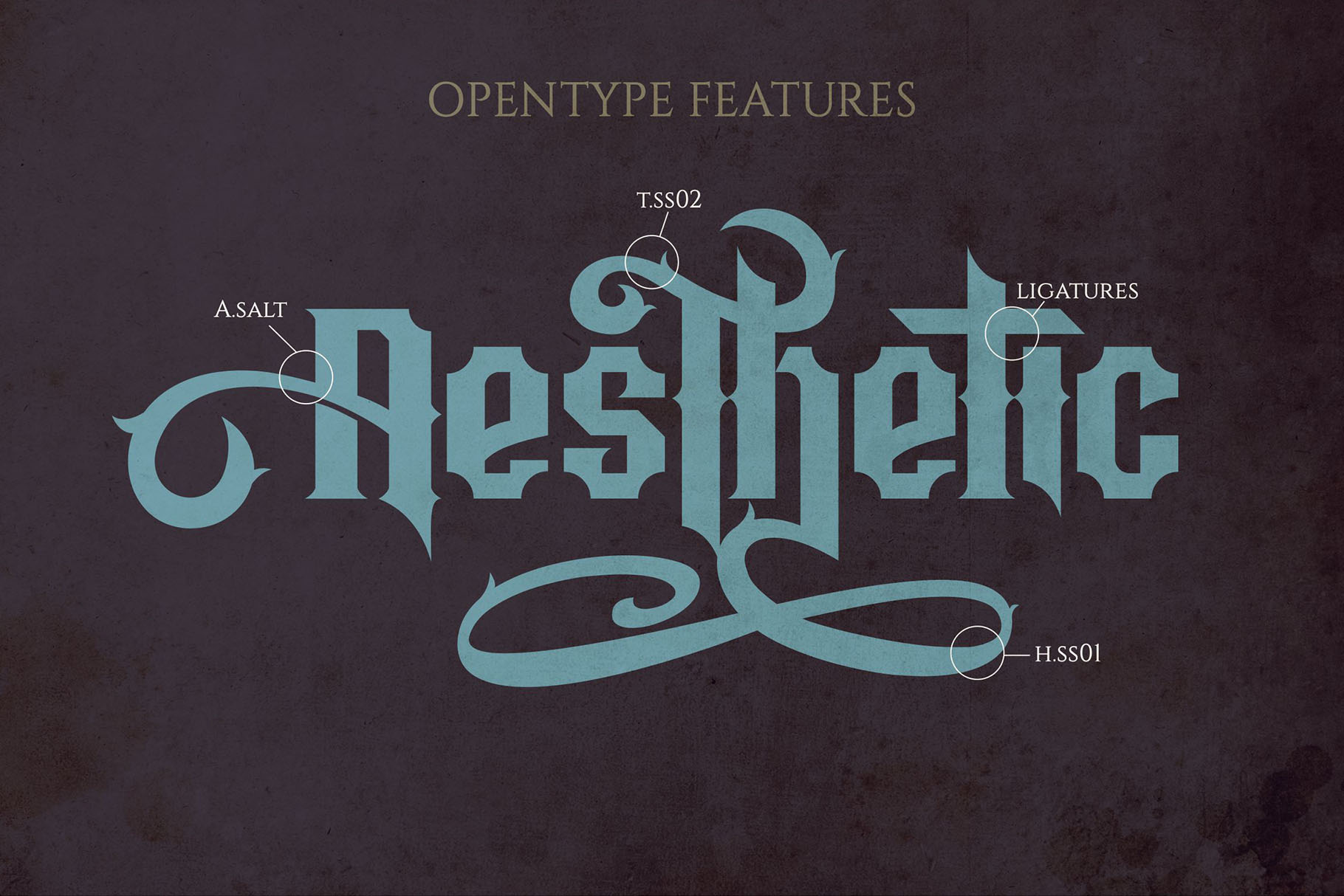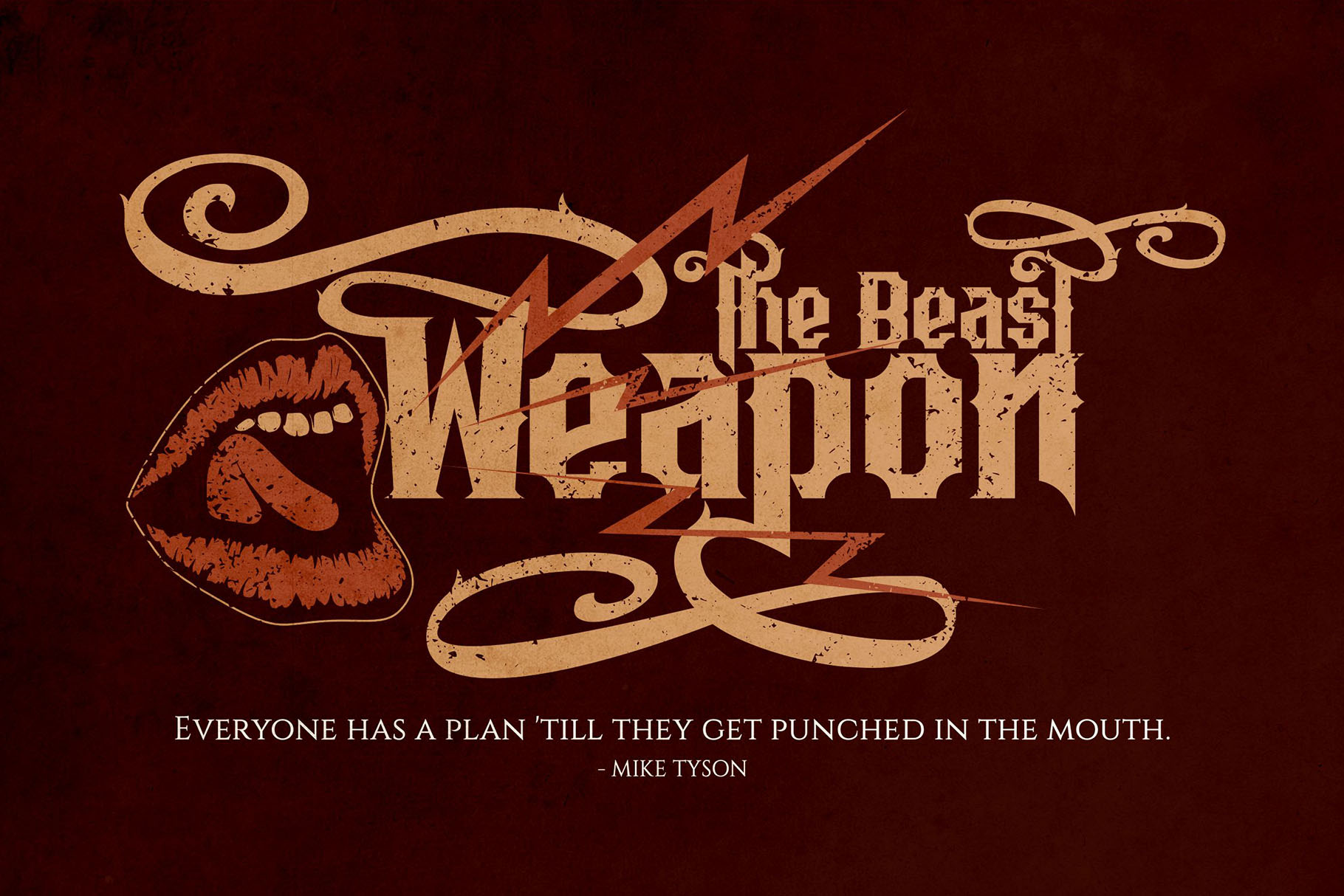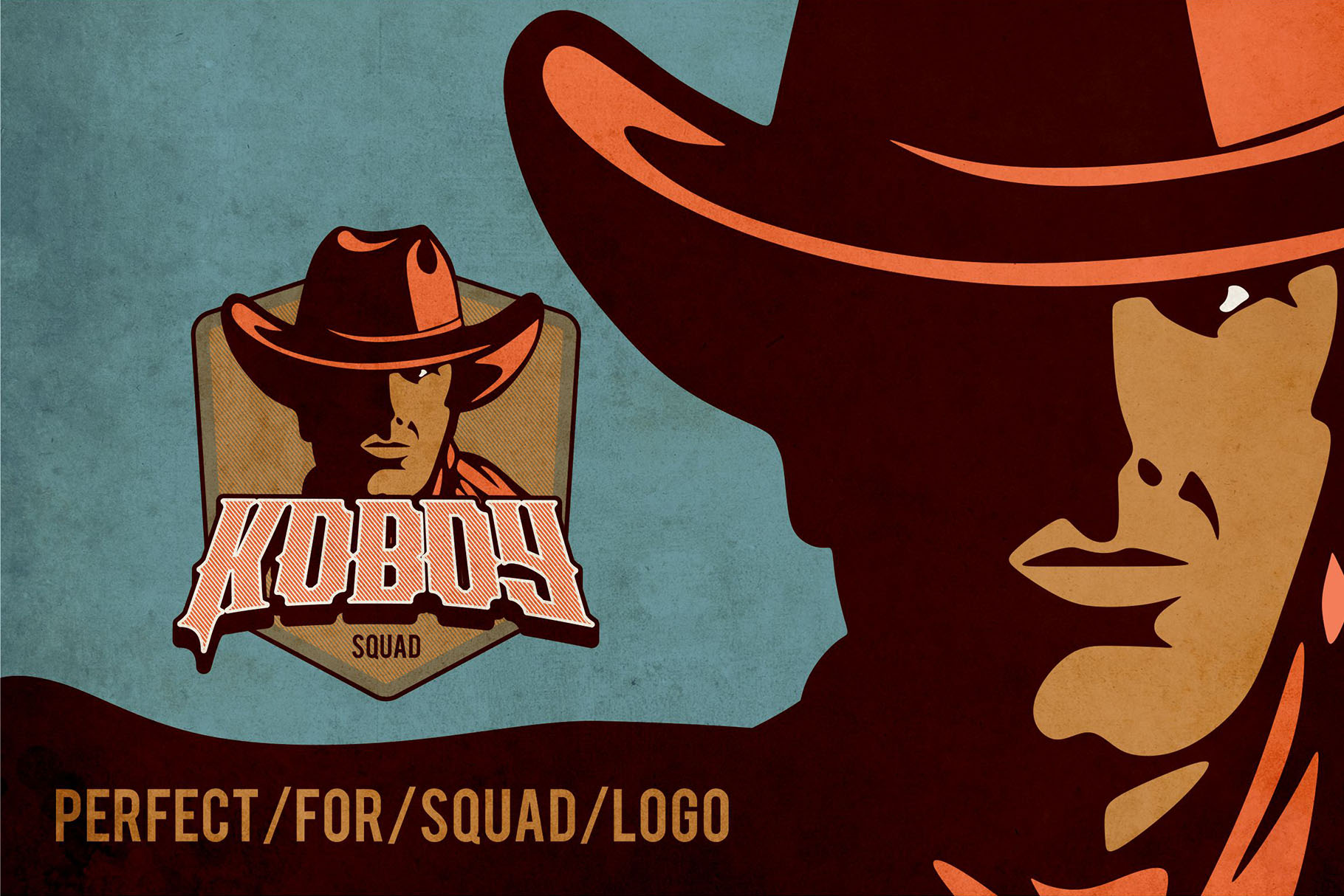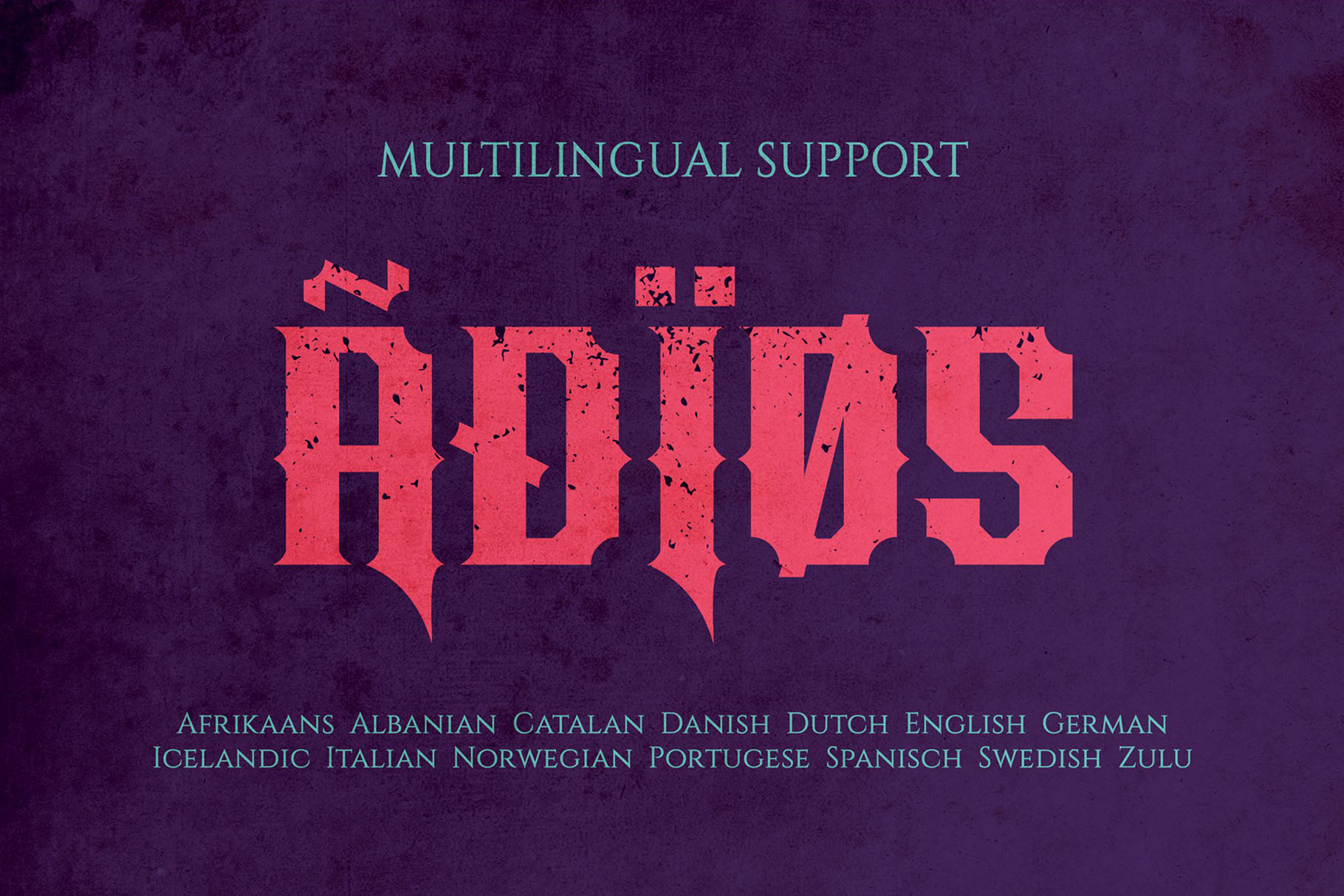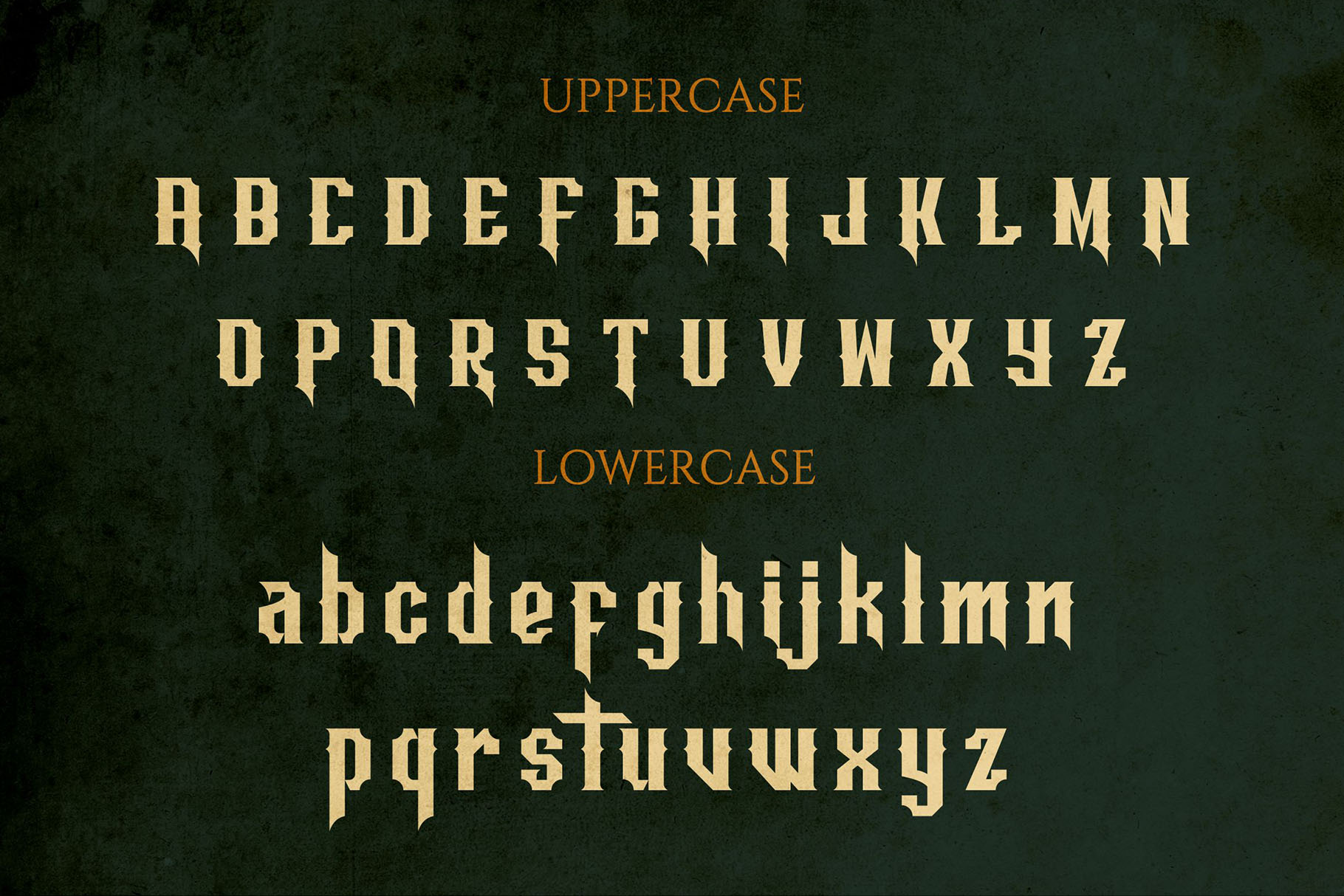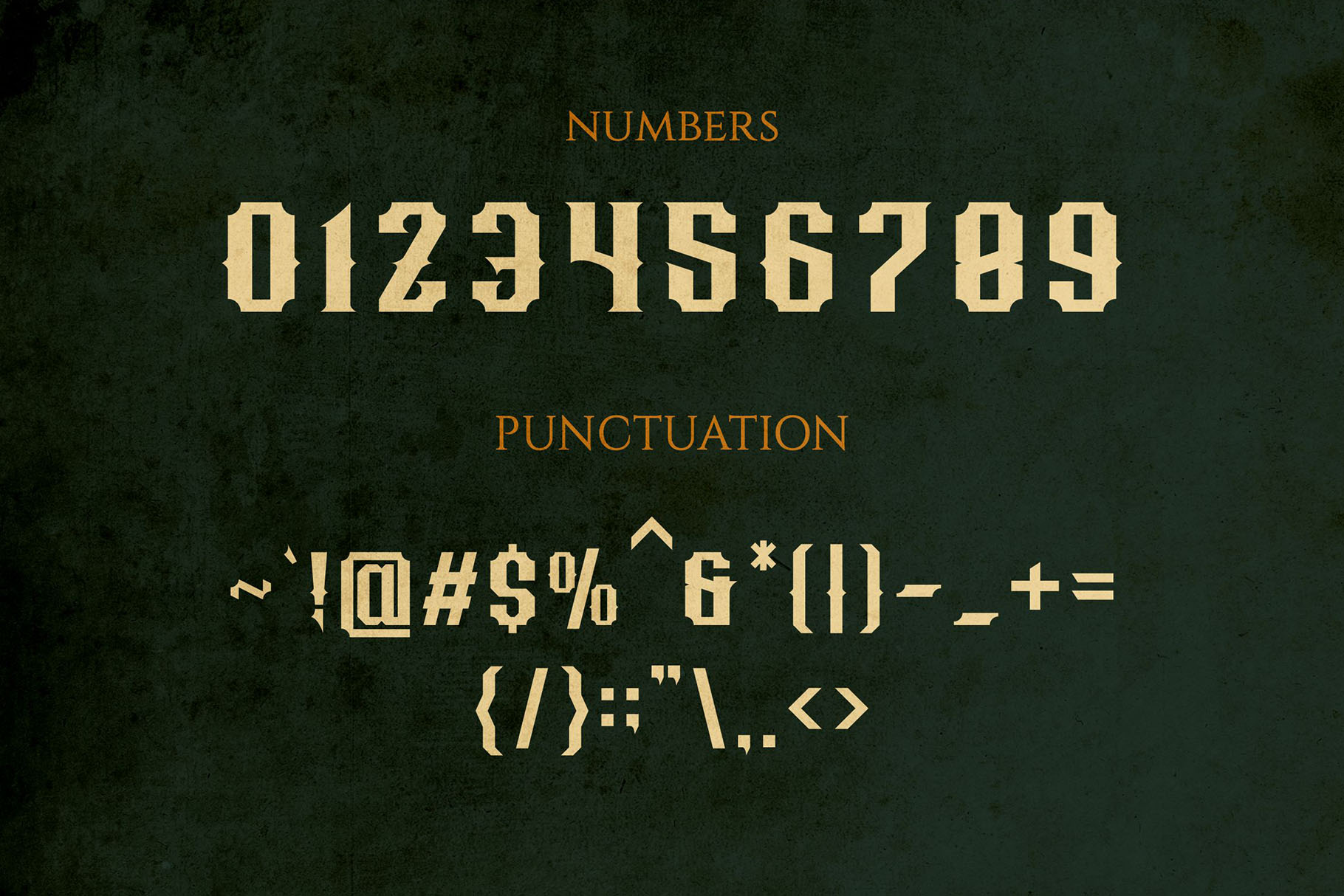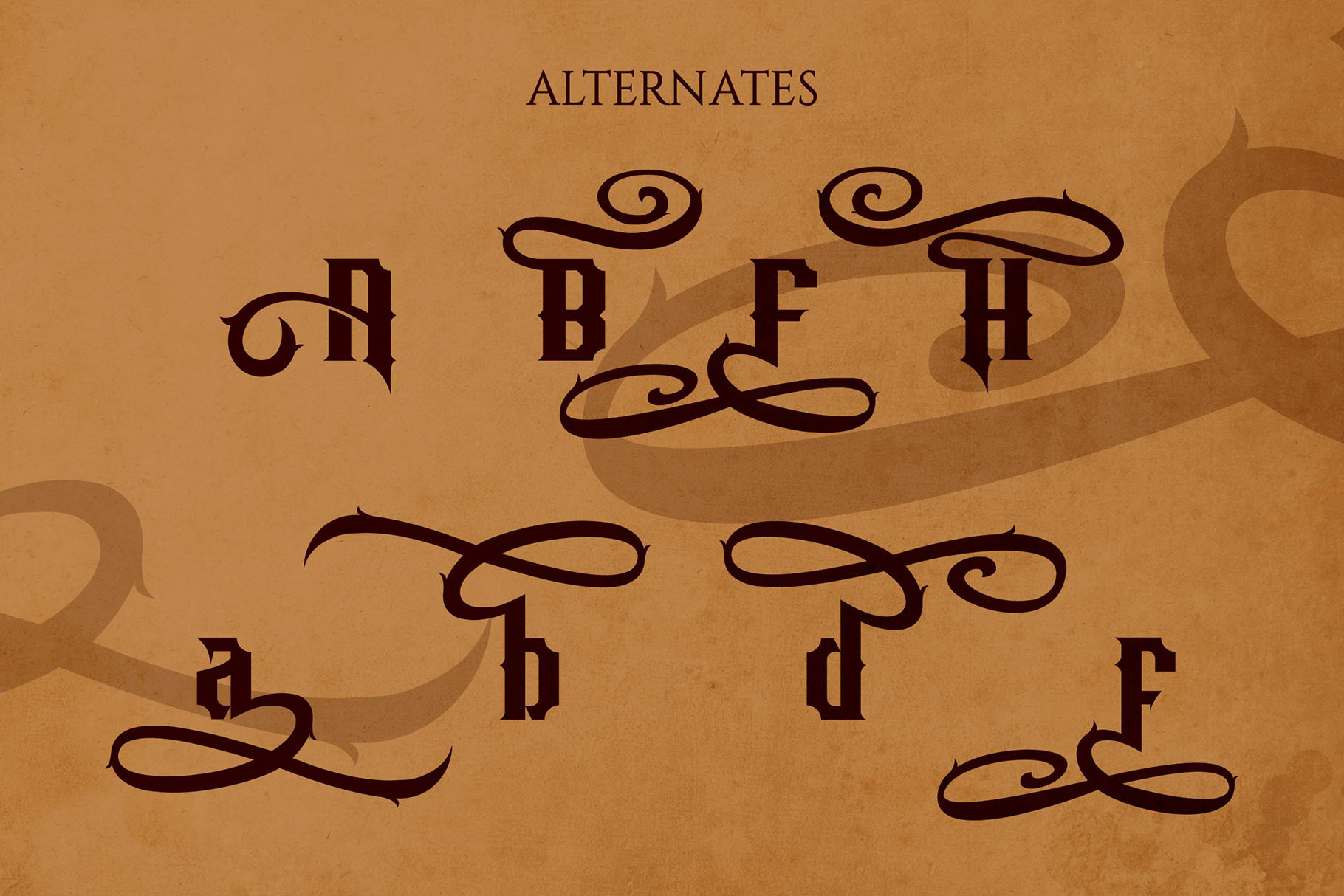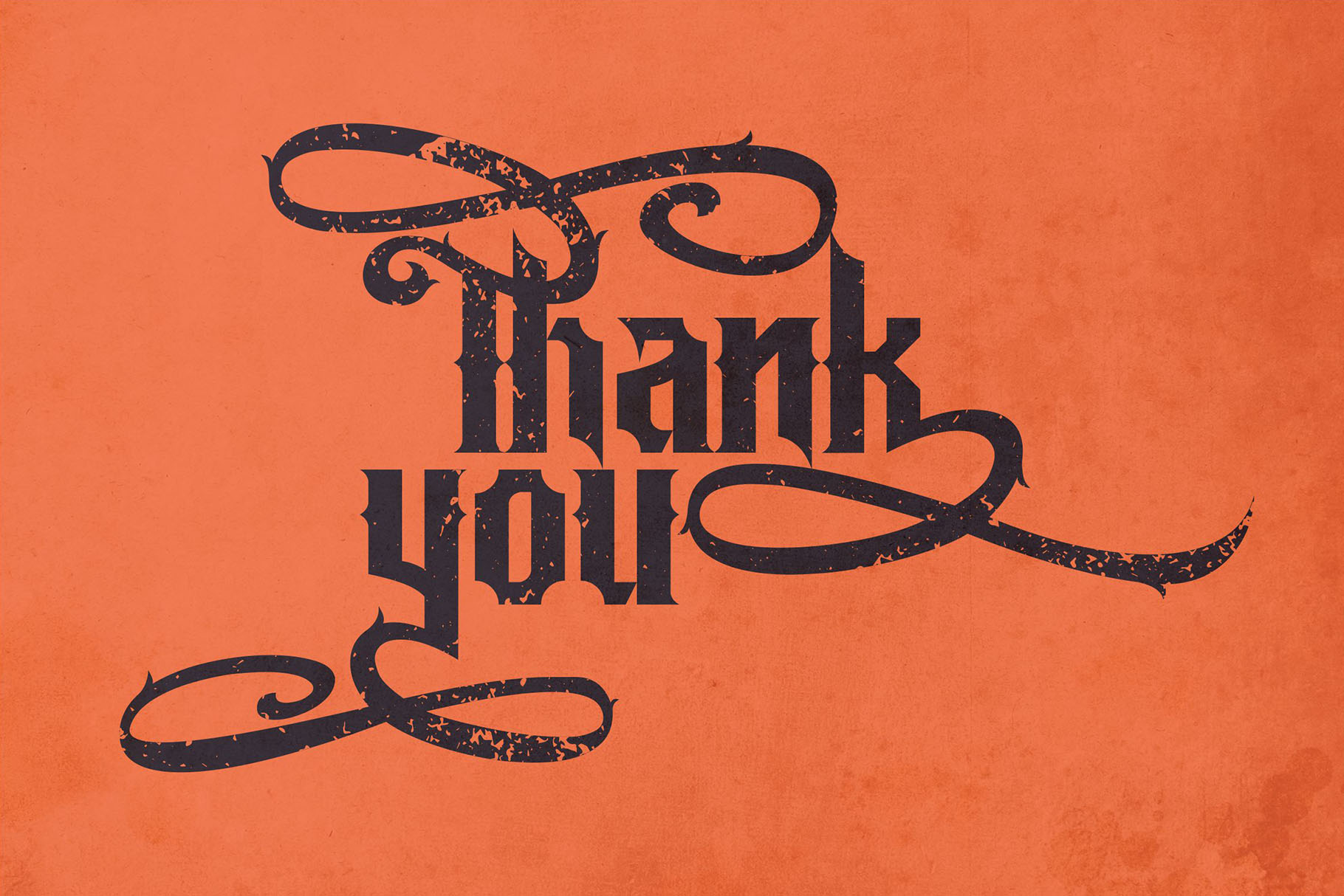
Aesthetic Typeface is handmade vintage lettering, which is combining modern and classic typography with some awesome features.
Aesthetic Features
- Uppercase
- Lowercase
- Numerals & Punctuations
- Accents (Multilingual characters)
OpenType features
- Ligatures
- Stylistic Alternates
- ss01
- ss02
- ss03
- swash